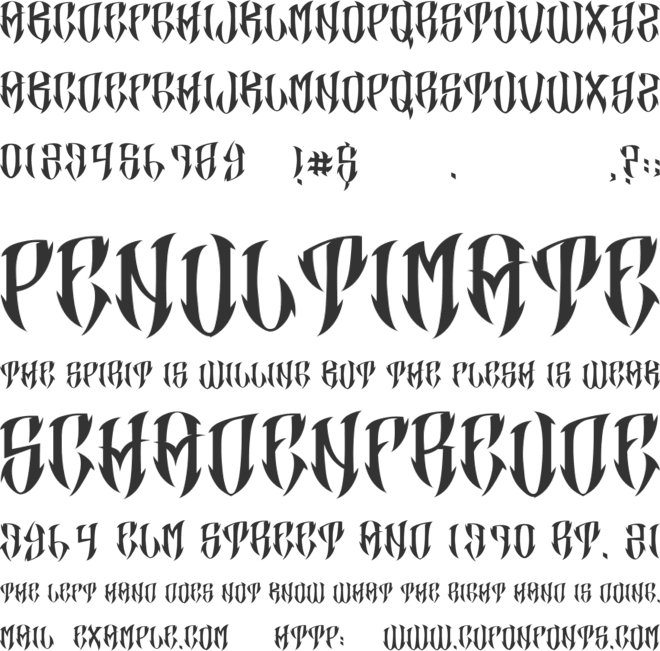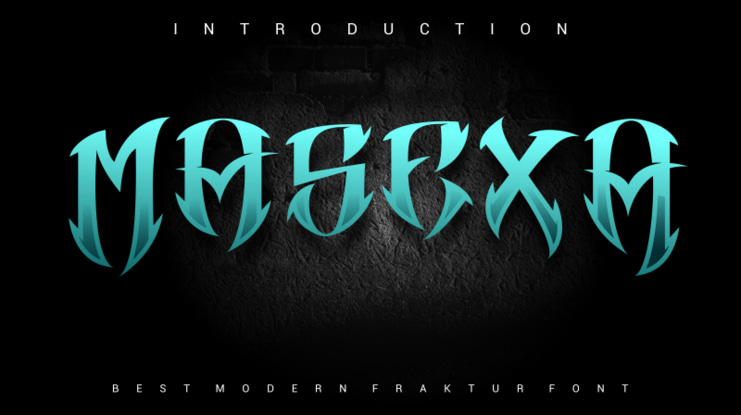
Masexa Font
Presenting our new product **Masexa Font** - Modern Font is a bold and authentic display font. This font is perfect for any branding project such as logos, t-shirt printing, creative products, and more. extraordinary in a variety of contexts.